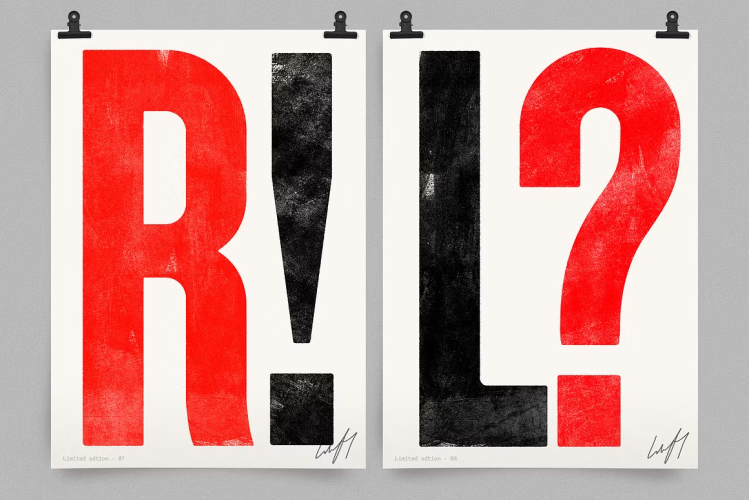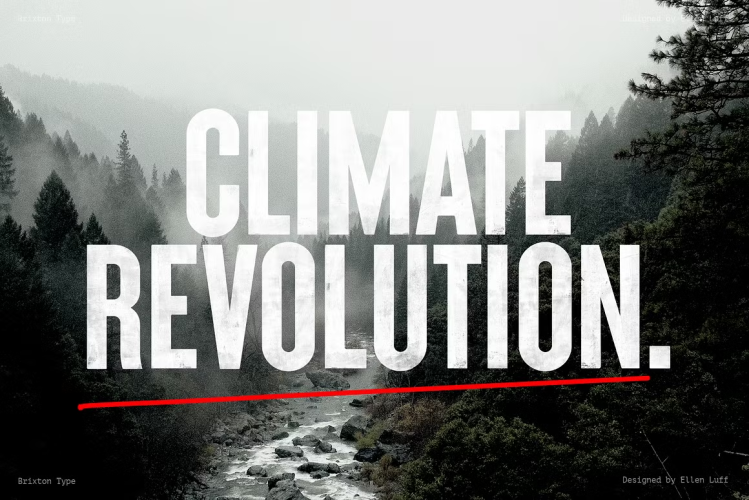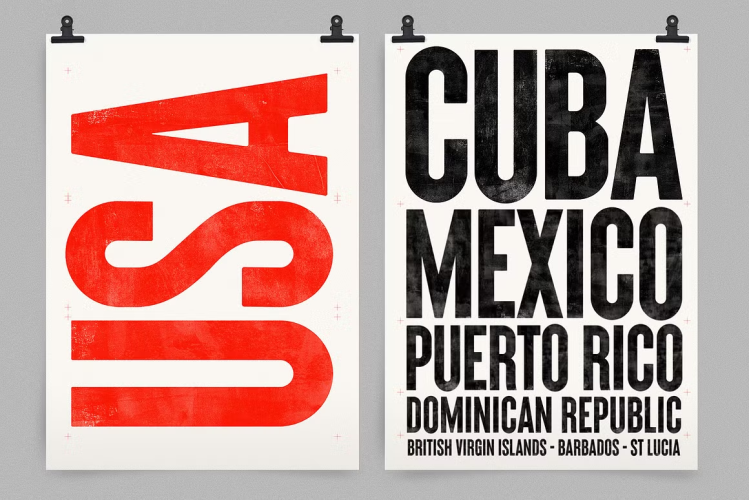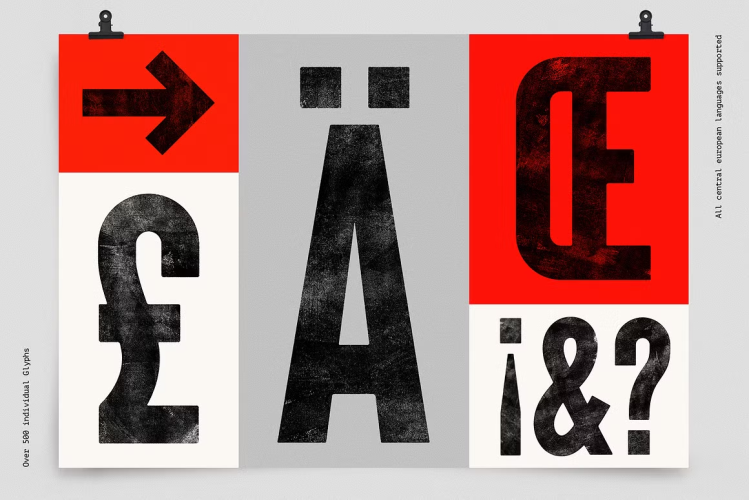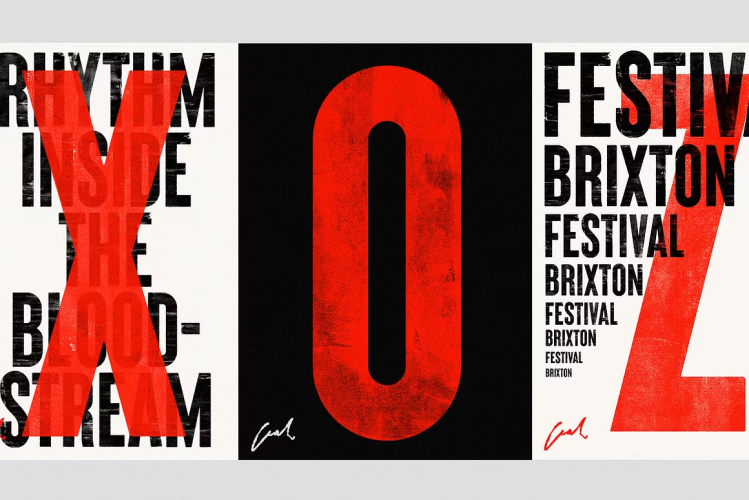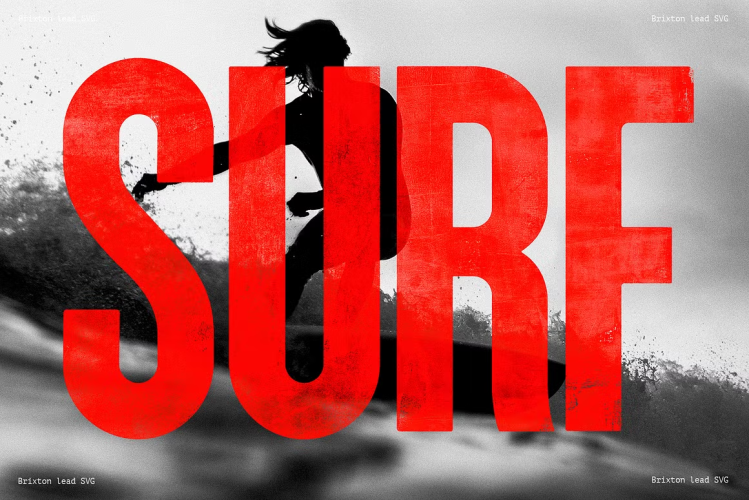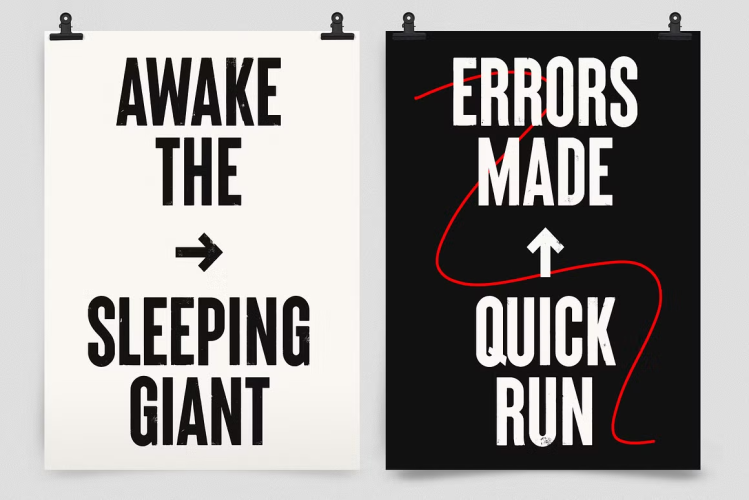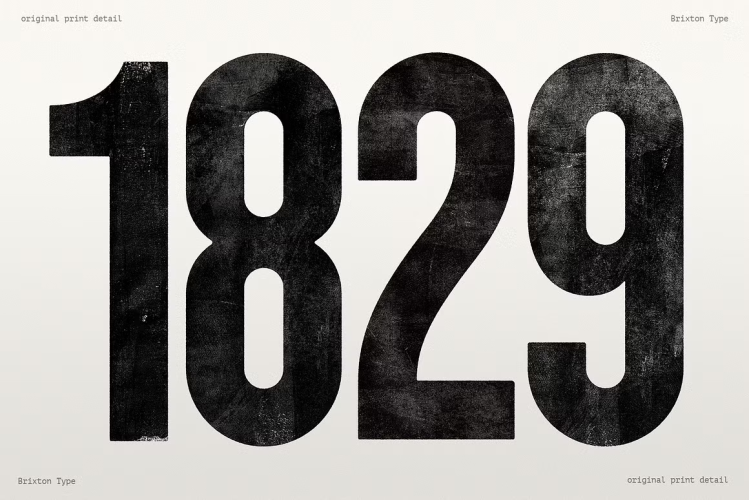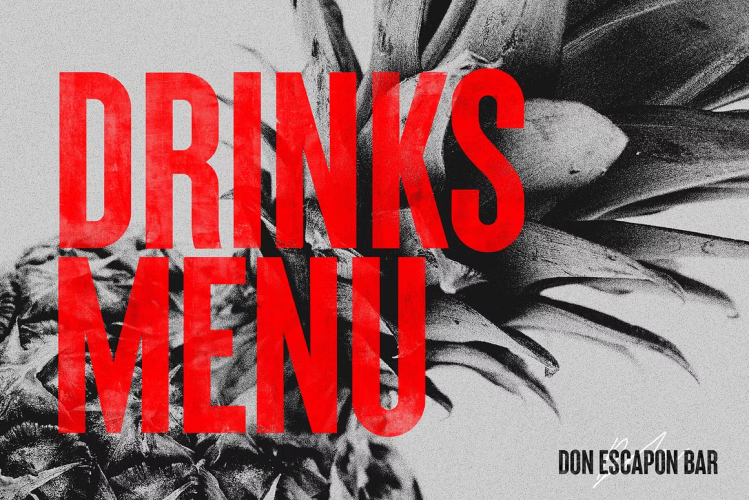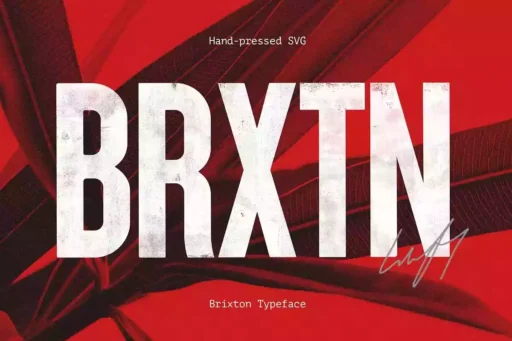
Brixton Font
Meet Brixton, the bold hand-printed font family that acknowledges the letterpress style and its captivating flaws. Being bold, slender, and inimitable in texture, Brixton is a powerful expression of personality and is, therefore, perfect for design statements of force.
The Brixton font revolutionizes typography with its innovative SVG fonts, showcasing unparalleled quality and texture previously unseen. Users can apply the fonts in any color or background, fostering creativity. Brixton offers two distinct SVG letterpress styles: Wood and Lead, each boasting transparent textures with exceptional details. Additionally, Brixton includes vector pairs, facilitating easy implementation across various design projects.
Whether you aim to display the gritty textures in black and white or unleash Brixton’s full potential in vibrant color, this typeface represents the limitless field for creative interpretation. With a pair of options for each letter, Brixton retains a custom-made appearance without obvious repeats and supports all Central European languages.
Ultimately, Brixton isn’t just a font but a mighty tool for designers who want to bring authenticity and personality to their projects. Featuring unique textures, adaptable formats, and painstaking attention to detail, Brixton allows designers to experiment and create unforgettable designs.
Brixton Font is a Sans Serif Fonts font that brings a professional and versatile look to your projects. Meet Brixton, the bold hand-printed font family that acknowledges the letterpress style and its captivating flaws.